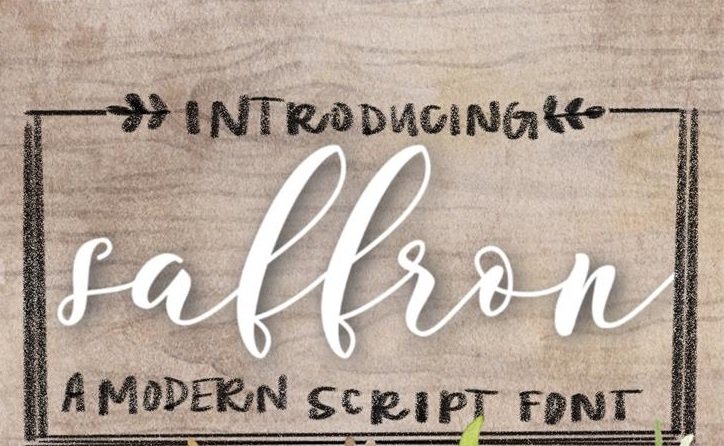
Saffron Script Font
When I designed ‘Saffron’ I wanted something free-flowing and modern.
This font is fun and graceful all at the same time .
It is perfect for weddings, invitations, cards, web design, logos, stationary, and anything else you can imagine.